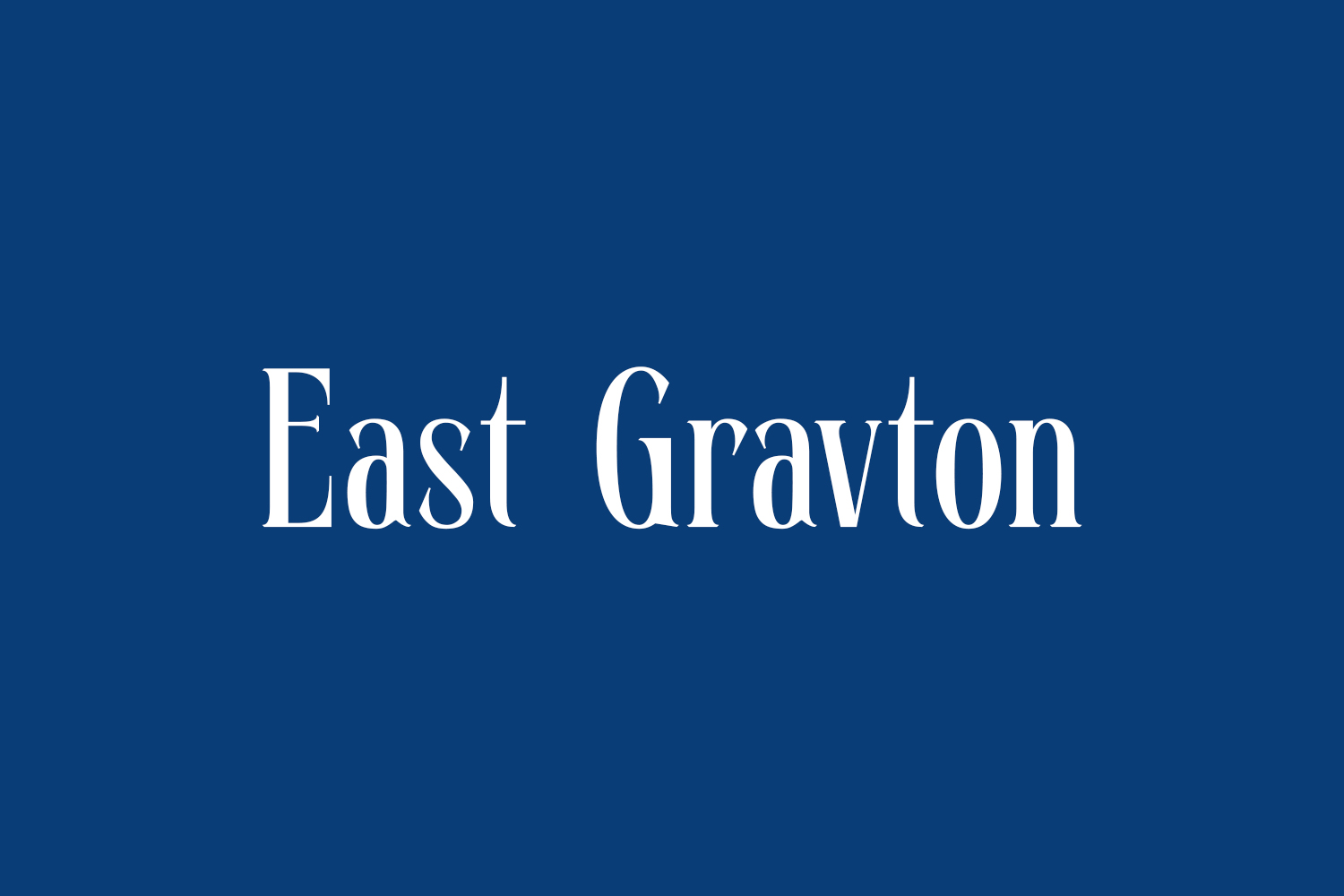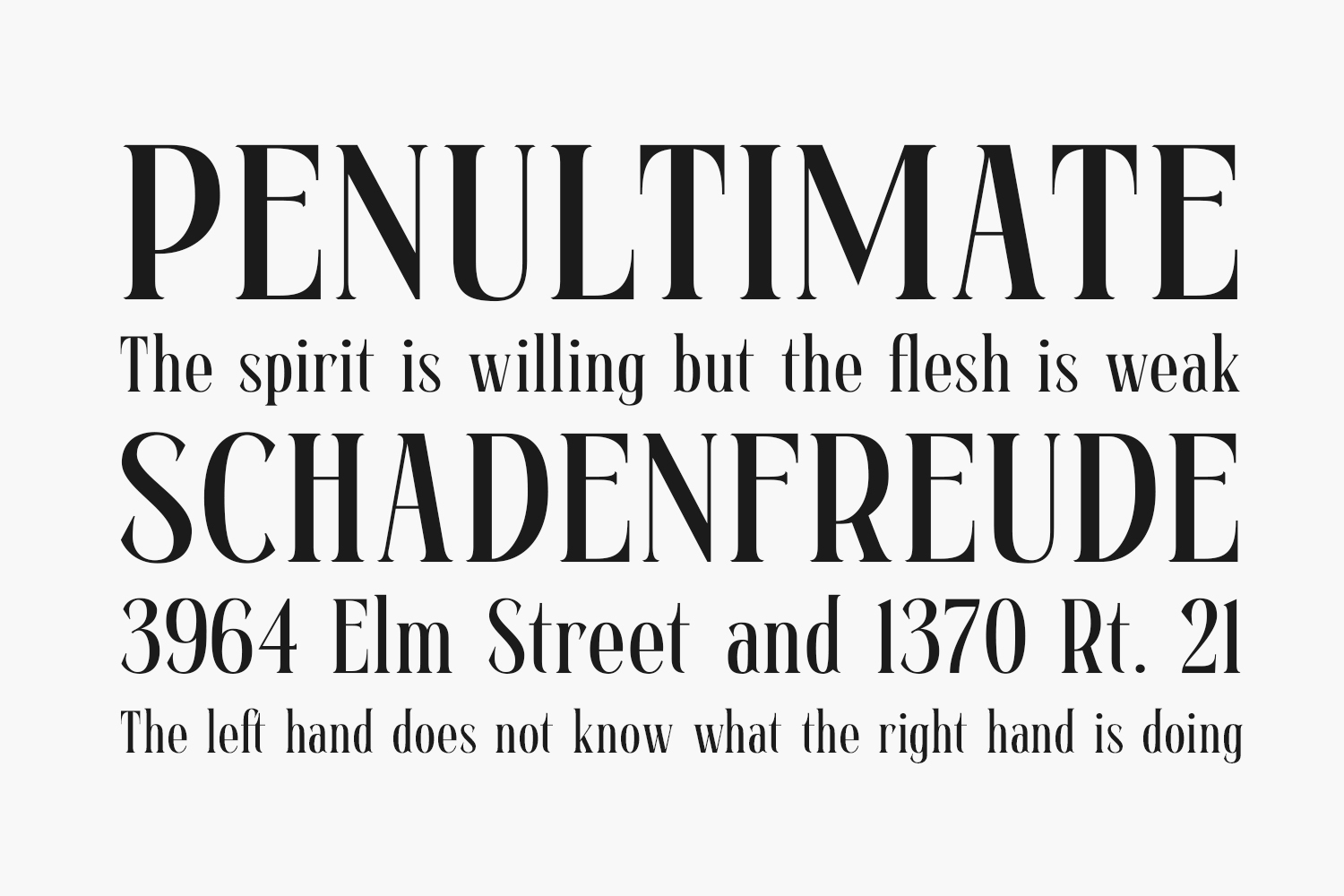
East Gravton Free Font is a sophisticated serif typeface blending modern aesthetics with classic charm, boasting its own distinctive style and contemporary flair. Ideal for crafting elegant and luxurious logos, book or movie titles, fashion brands, magazines, clothing designs, lettering, quotes, and beyond. Elevate your projects with East Gravton’s timeless allure and versatility. Download the font for free if you need it for personal use or purchase the full version for commercial use.